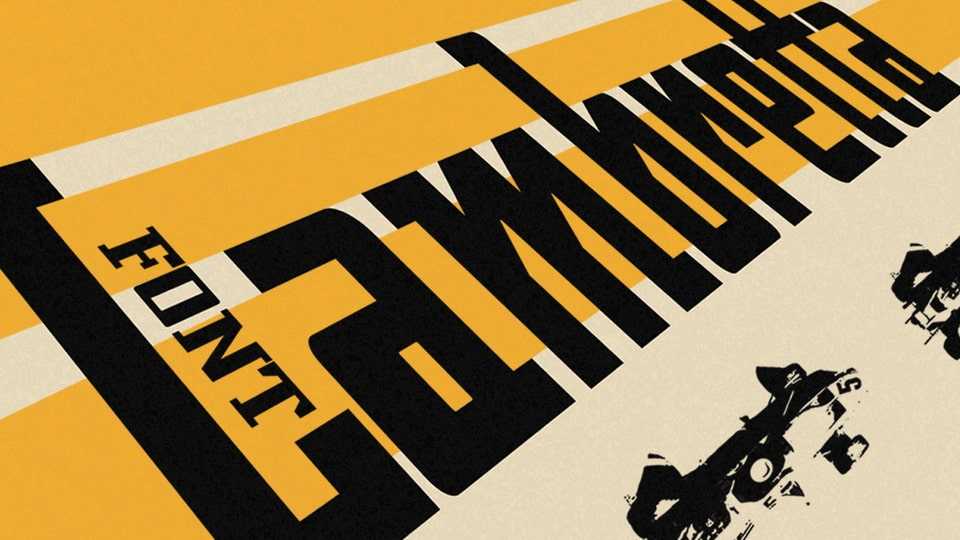
Download Lambretta Font, a groundbreaking typeface that seamlessly unites the compact geometry of mechanics with the smooth curves of the asphalt. This innovative typeface is a visual symphony, capturing the essence of urban landscapes where precision meets fluidity.